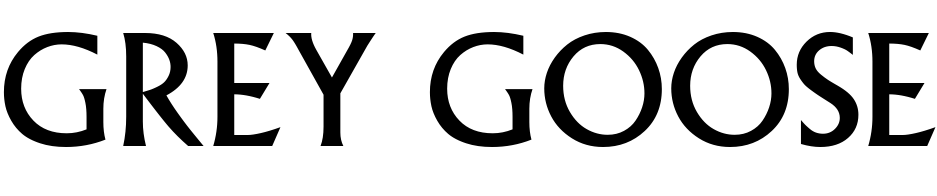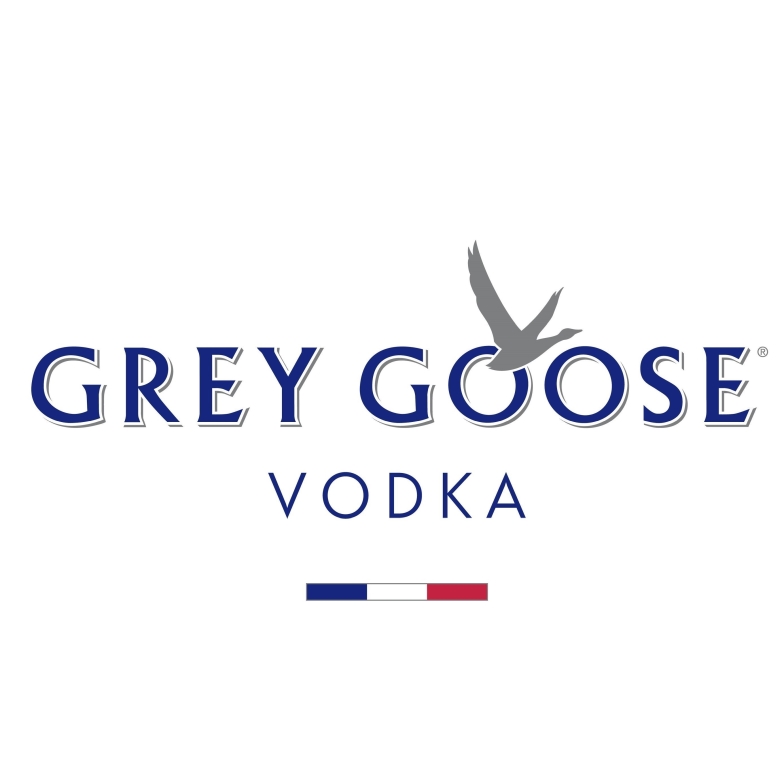
Grey Goose Font
Fonts in UseGrey Goose is a premium brand of French vodka made from high-quality ingredients and distilled in a state-of-the-art facility. It is known for its smooth, clean taste and is a popular choice among vodka enthusiasts.
The vodka brand's logo features the Albertus Roman font, a glyphic serif display typeface created by Berthold Wolpe for Monotype's British division.